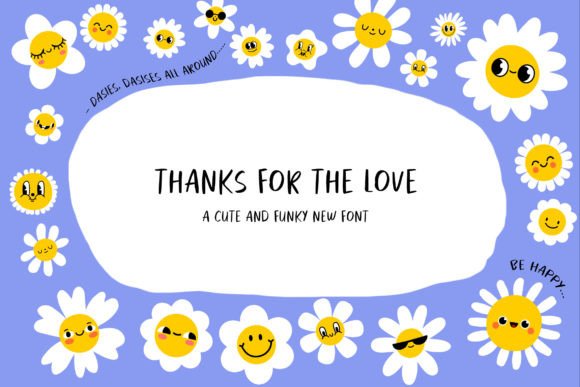
Step into the realm of boundless creativity with Thanks for the Love Font – the ultimate companion for expressing your playful and charming personality. Immerse yourself in a world of enchanting designs, where every word and letter exudes a touch of childlike wonder.
Crafted with meticulous care by the talented artisans at Jupiter Studio, Thanks for the Love Font is a sans serif masterpiece that captivates with its effortless readability and playful spirit. Whether you're a seasoned designer or just starting your creative journey, this font is your gateway to unlocking a universe of captivating designs.
With Thanks for the Love Font, the possibilities are endless. Create captivating logos that radiate warmth and charm, design eye-catching social media posts that demand attention, or craft unforgettable greeting cards that leave a lasting impression. Its versatility extends to presentations, digital designs, and countless other projects, ensuring that your ideas come to life with a touch of whimsical elegance.
Imagine a delightful logo that captures the essence of your brand – a blend of whimsy and sophistication. Thanks for the Love Font effortlessly achieves this balance, inviting customers to embark on a journey of smiles and laughter. Its charming curves and playful strokes evoke a sense of nostalgia, reminding us of childhood memories and the joy of simple pleasures.
Beyond logos, Thanks for the Love Font adds a touch of magic to your digital creations. Design social media posts that burst with personality and engage your audience with captivating visuals. Create presentations that leave a lasting impression, where each slide tells a story of creativity and innovation. Unleash your imagination and turn ordinary designs into extraordinary works of art.
And when it's time to spread joy and cheer, Thanks for the Love Font is your perfect partner. Craft greeting cards that warm the hearts of loved ones, expressing your affection with a dash of fun and playfulness. Whether it's a birthday, anniversary, or just a simple hello, your cards will be a cherished keepsake, treasured for years to come.
So why settle for ordinary fonts when you can embrace the extraordinary? Thanks for the Love Font is your key to unlocking a world of delightful designs, enchanting your audience with its playful charm. Its versatility and ease of use make it the perfect choice for designers of all levels, empowering you to transform your creative visions into captivating realities.
Embark on this enchanting journey with Thanks for the Love Font today and let your creativity soar to new heights. Every project, every design, every creation will be infused with a touch of magic, leaving a lasting impression on all who encounter it. Welcome to a world where imagination knows no bounds, where every design tells a story of joy and wonder. Welcome to the world of Thanks for the Love Font.